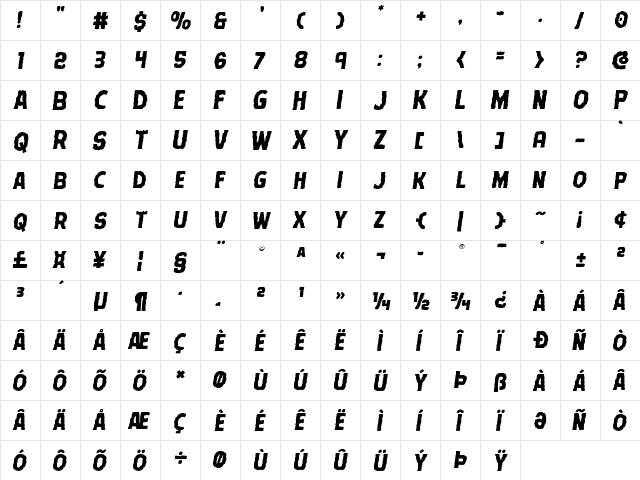
Terror Babble Semi-Italic Semi-Italic
Design Context for Terror Babble Semi-Italic Typeface
Terror Babble Semi-Italic is a composed and adaptable typeface that performs quietly and consistently across a wide range of design contexts. Its italic angle brings a sense of urgency and motion to the letterforms.
Pro Tip: Use Terror Babble Semi-Italic for emphasis, pull quotes, and subheadings where its slanted energy can add rhythm to the layout.